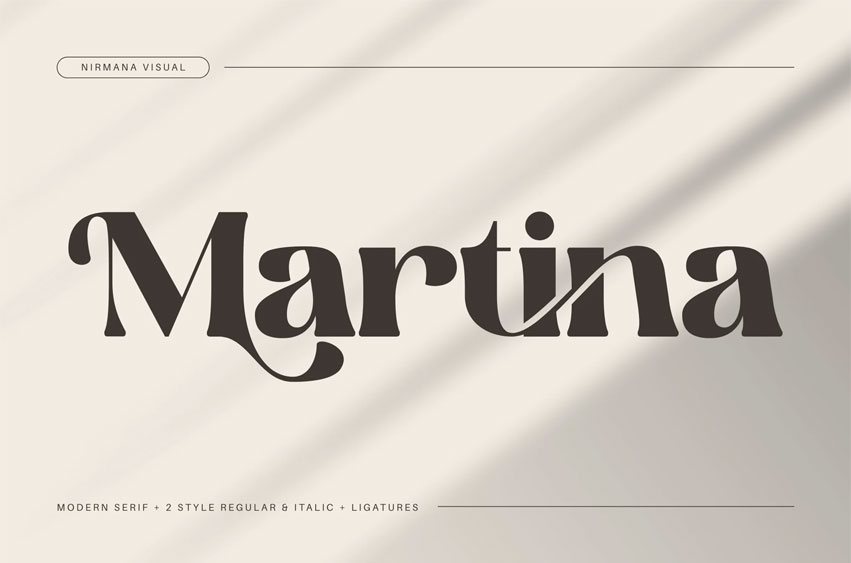
Martina Font
Martina Font Retro offers beautiful typographic harmony for a diversity of design projects, including logos & branding, social media posts, advertisements & product designs.